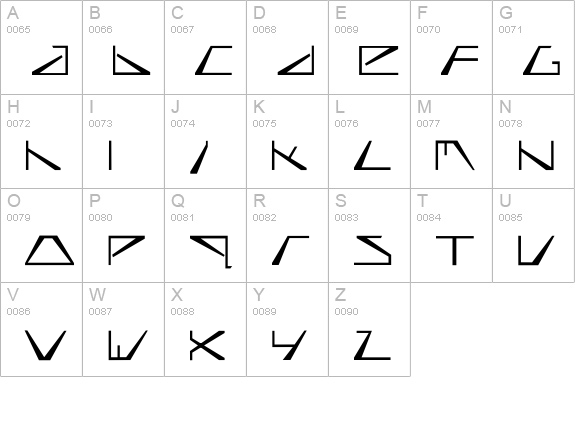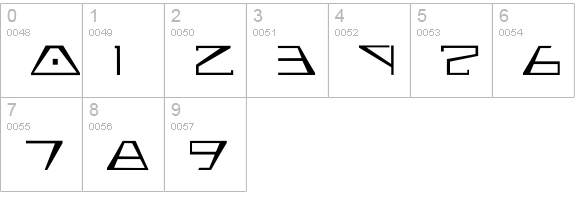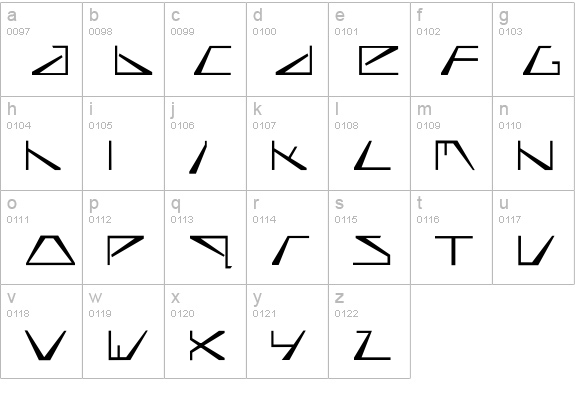
biasel Font Details
Biasel font is a beautifully crafted typeface that exudes elegance and sophistication. With its sleek and modern design, Biasel is perfect for adding a touch of class to any project. The clean lines and subtle curves of this font make it both stylish and versatile, suitable for a wide range of design applications. What sets Biasel font apart is not only its aesthetic appeal, but also the fact that it is available for free download at FontsMarket.com. This means that you can elevate your designs without having to worry about breaking the bank. Whether you're working on a branding project, a website design, or any other creative endeavor, Biasel font will add a touch of refinement that is sure to impress. Download Biasel font today and see the difference it can make in your designs!